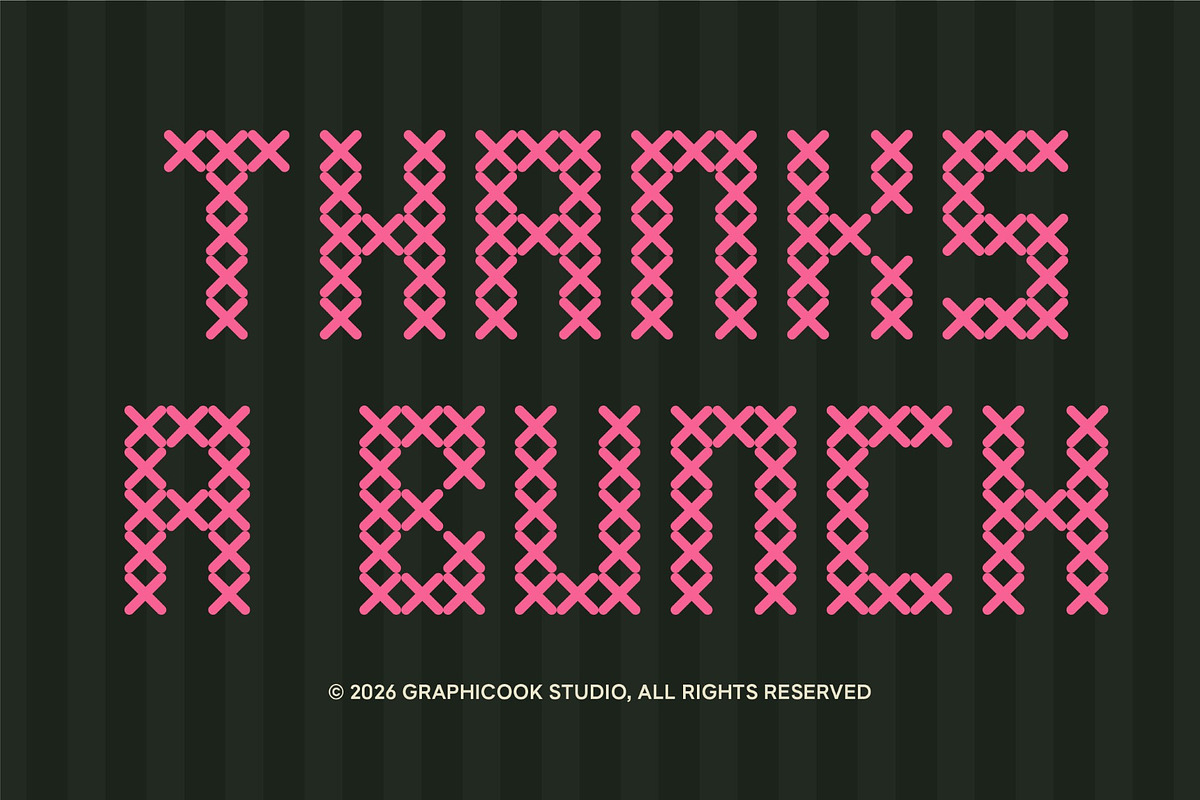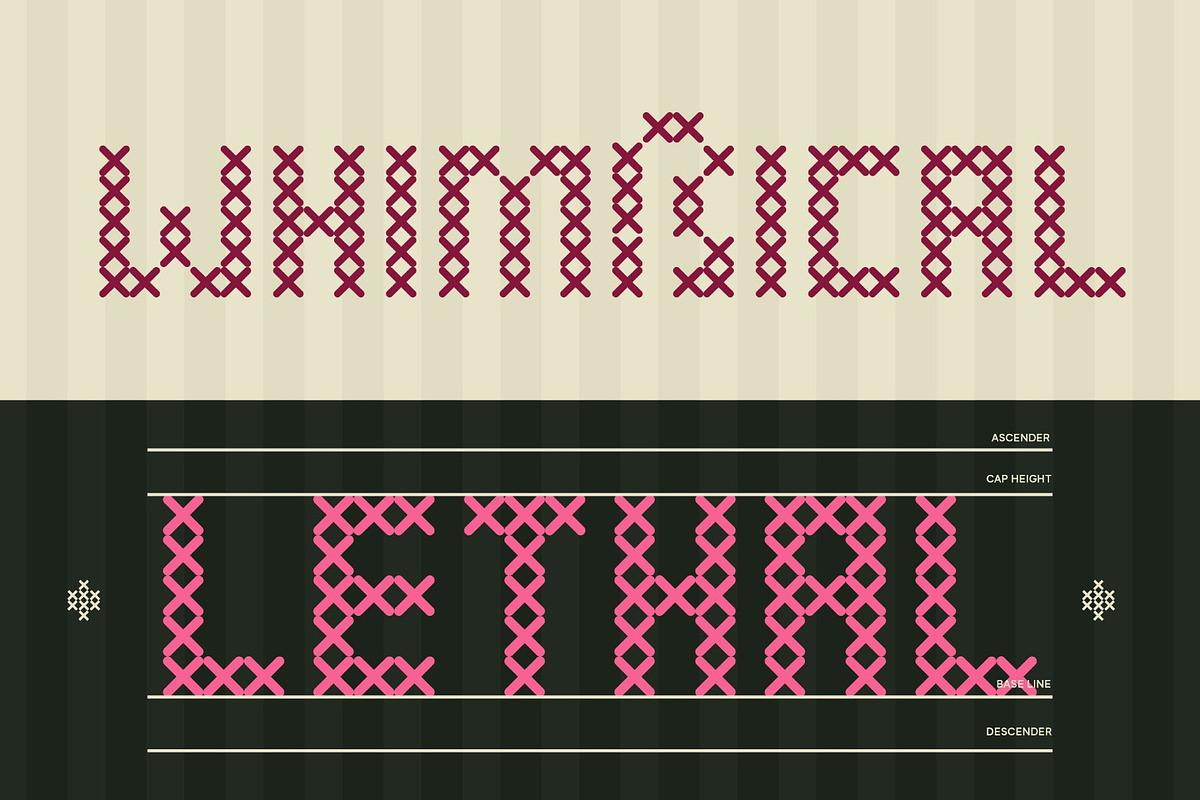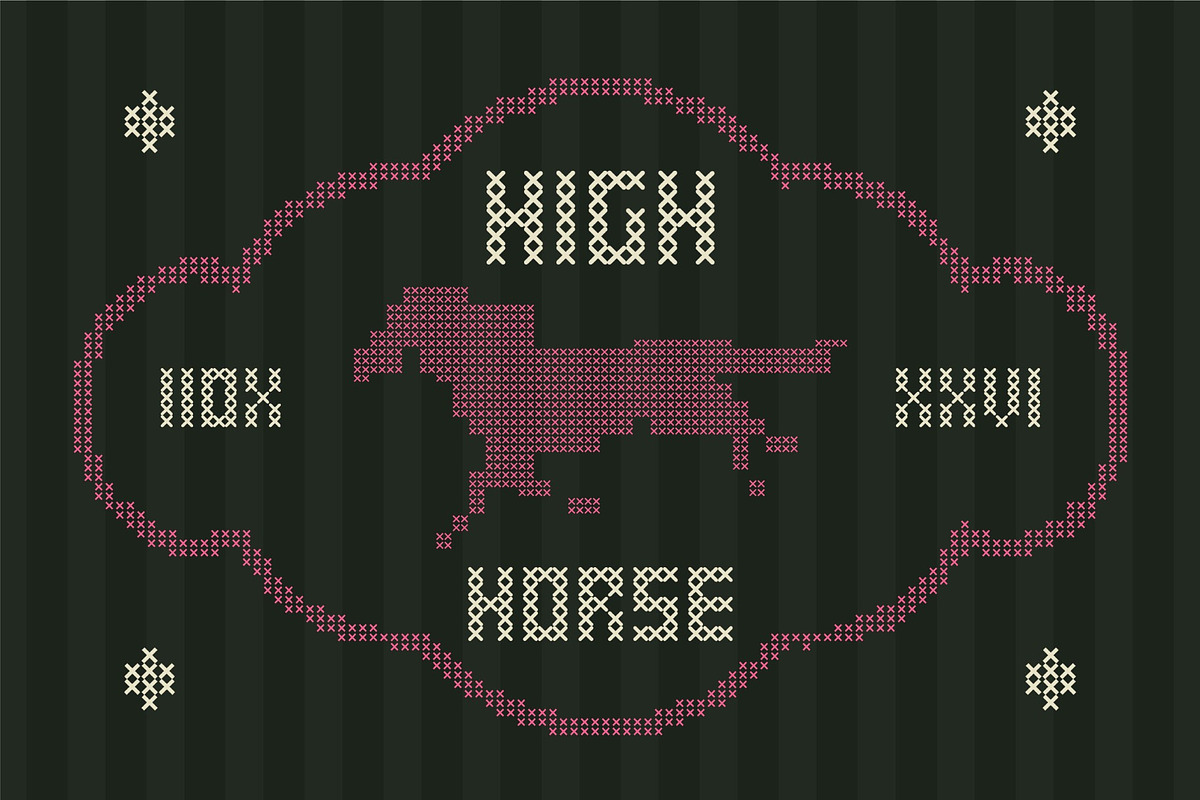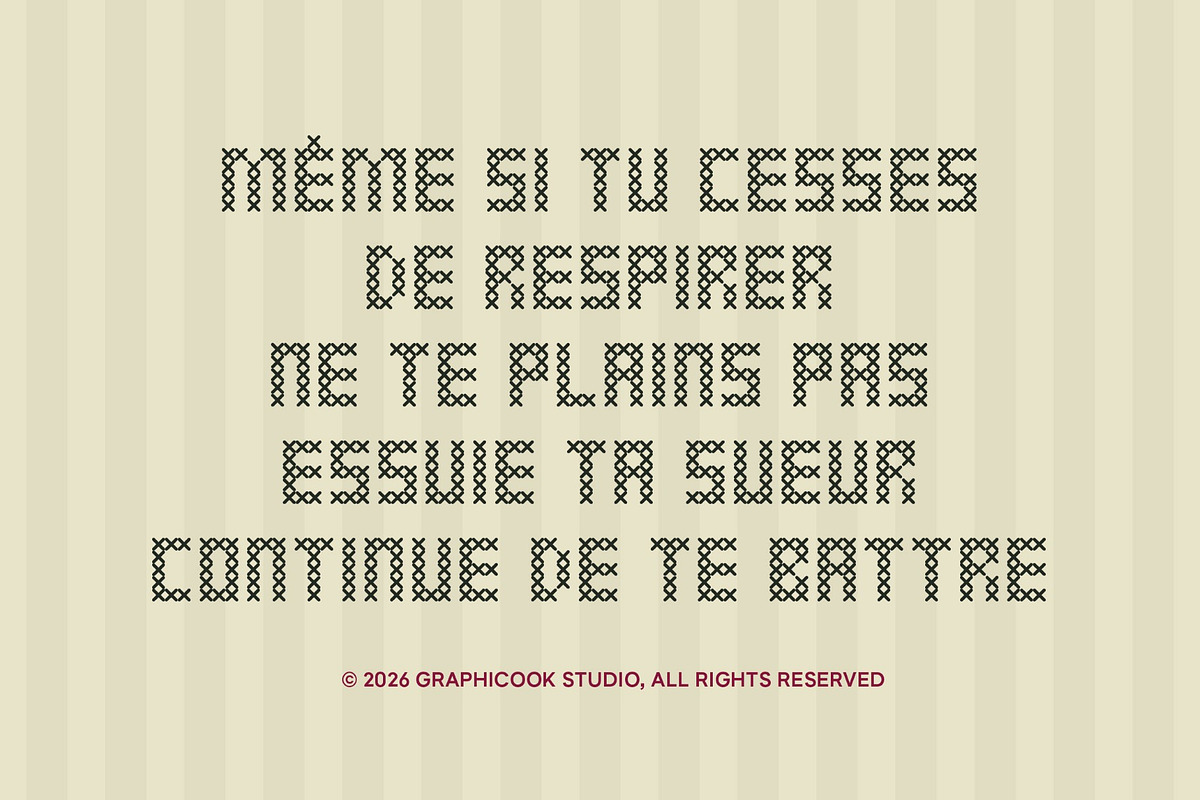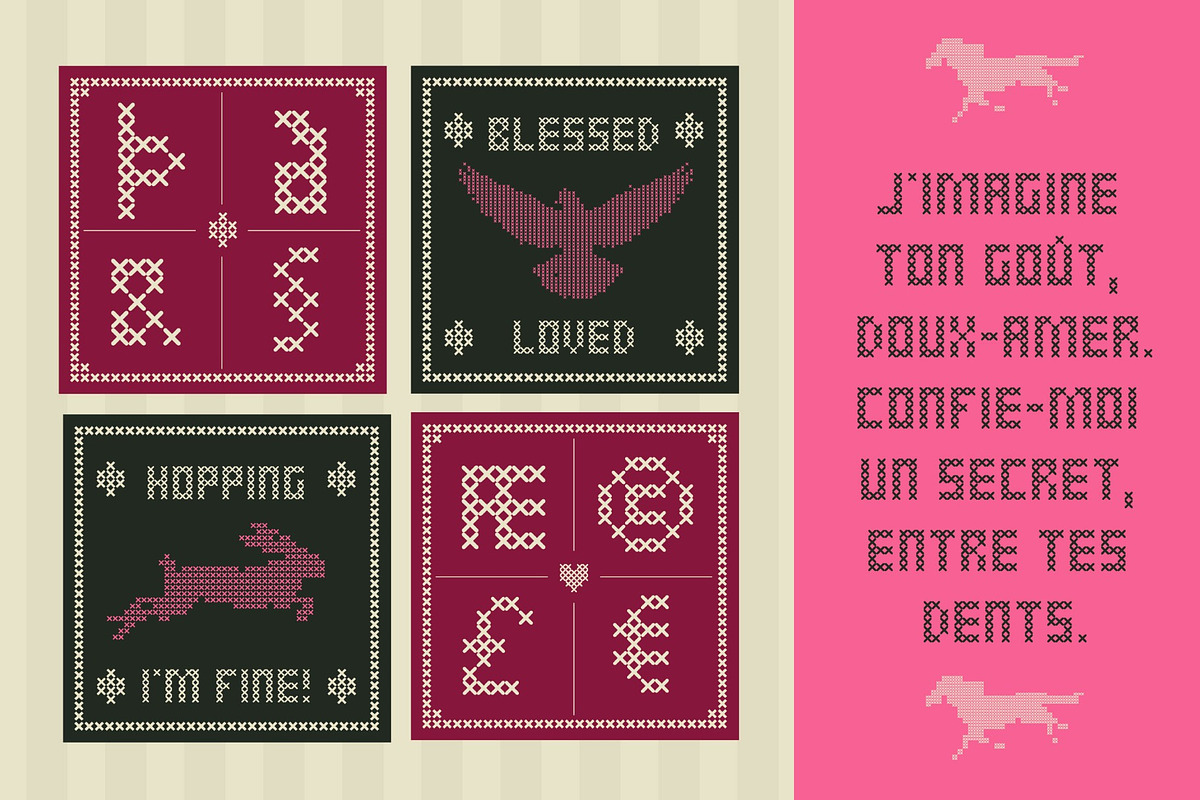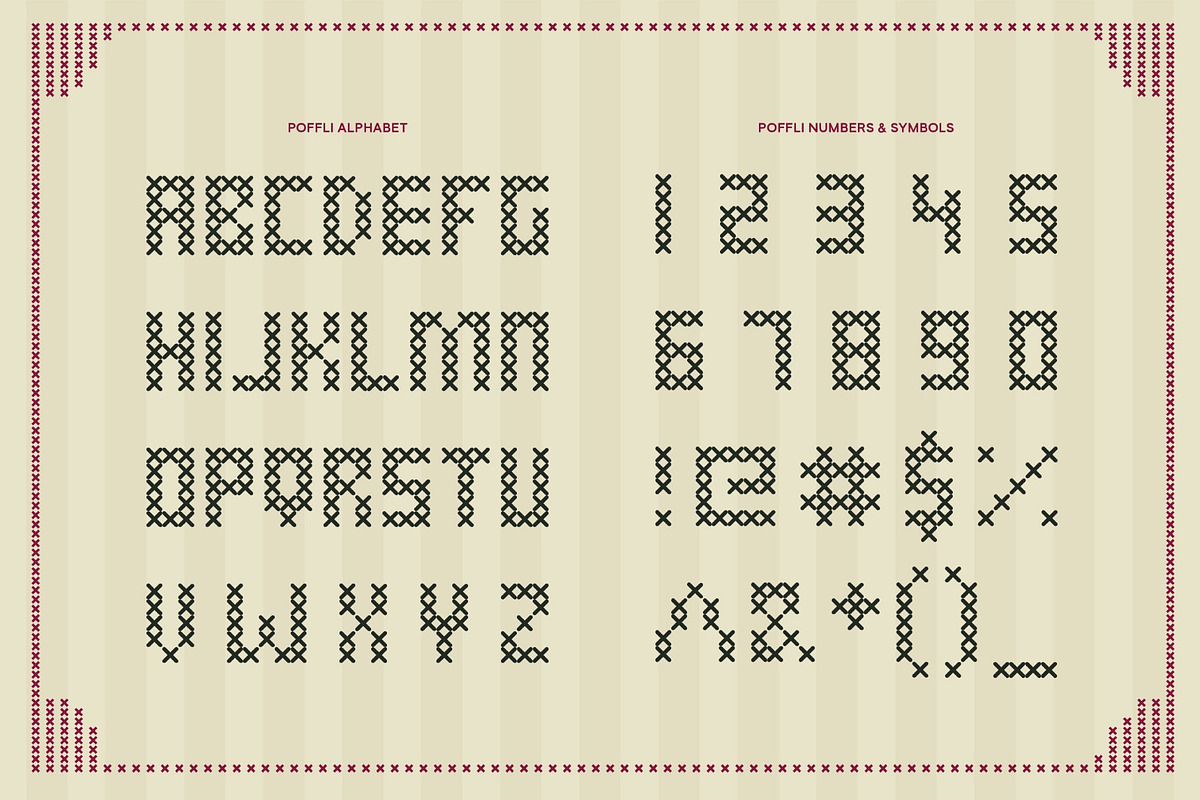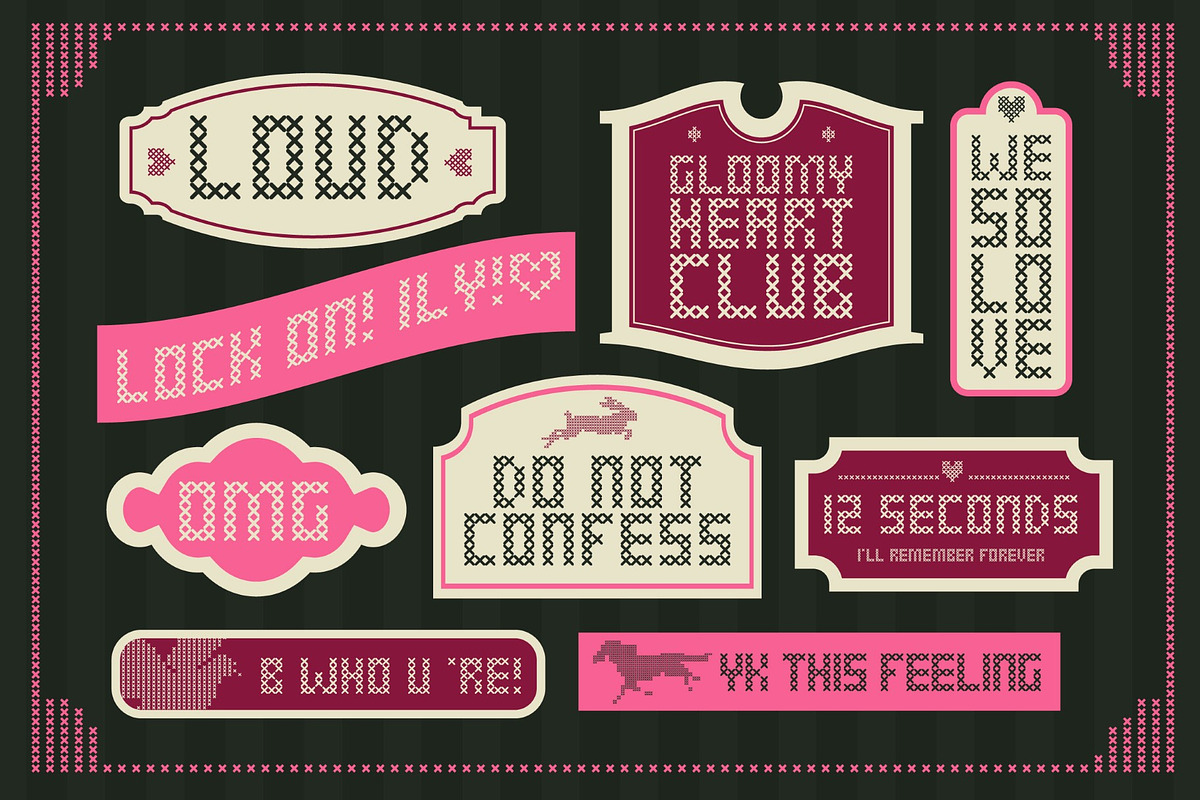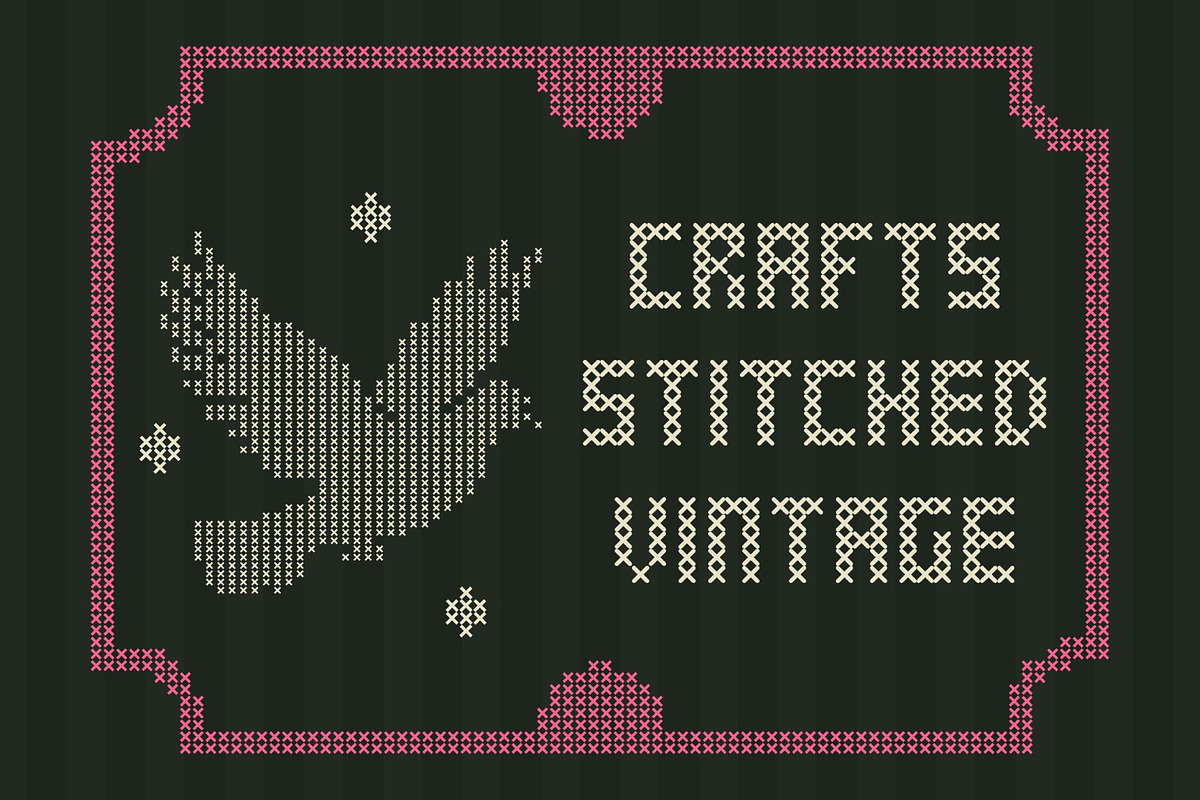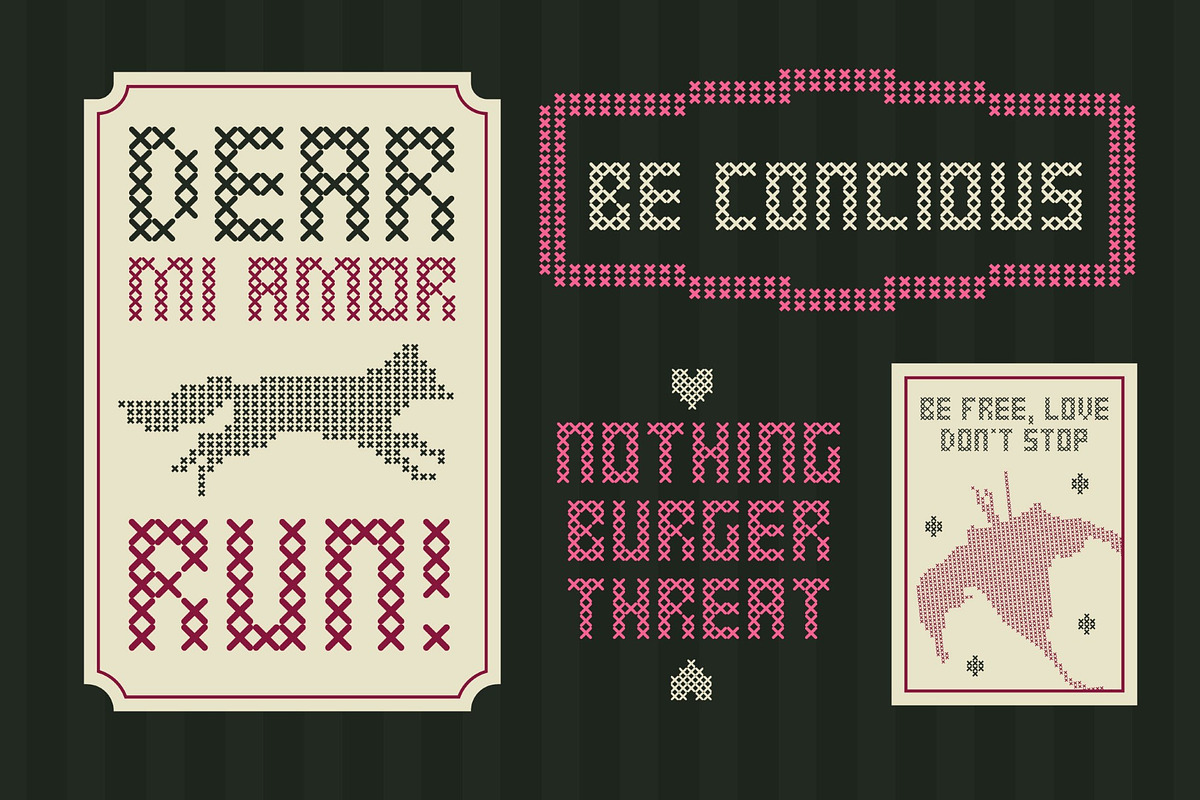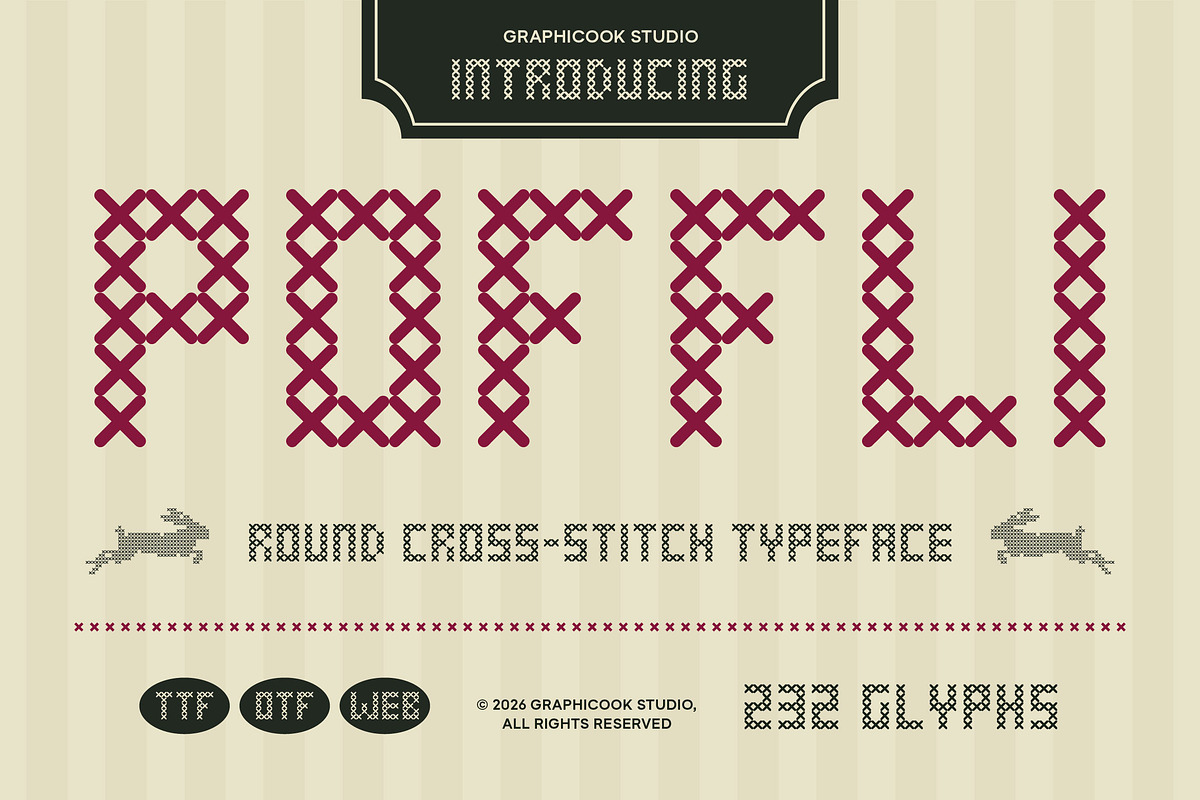
Poffli
Poffli a distinctive display typeface inspired by cross-stitch patterns and pixel-based lettering. Its characters are constructed from repeating X-shaped elements, creating a bold geometric texture with a handcrafted, retro feel. The unique modular structure makes it especially eye-catching